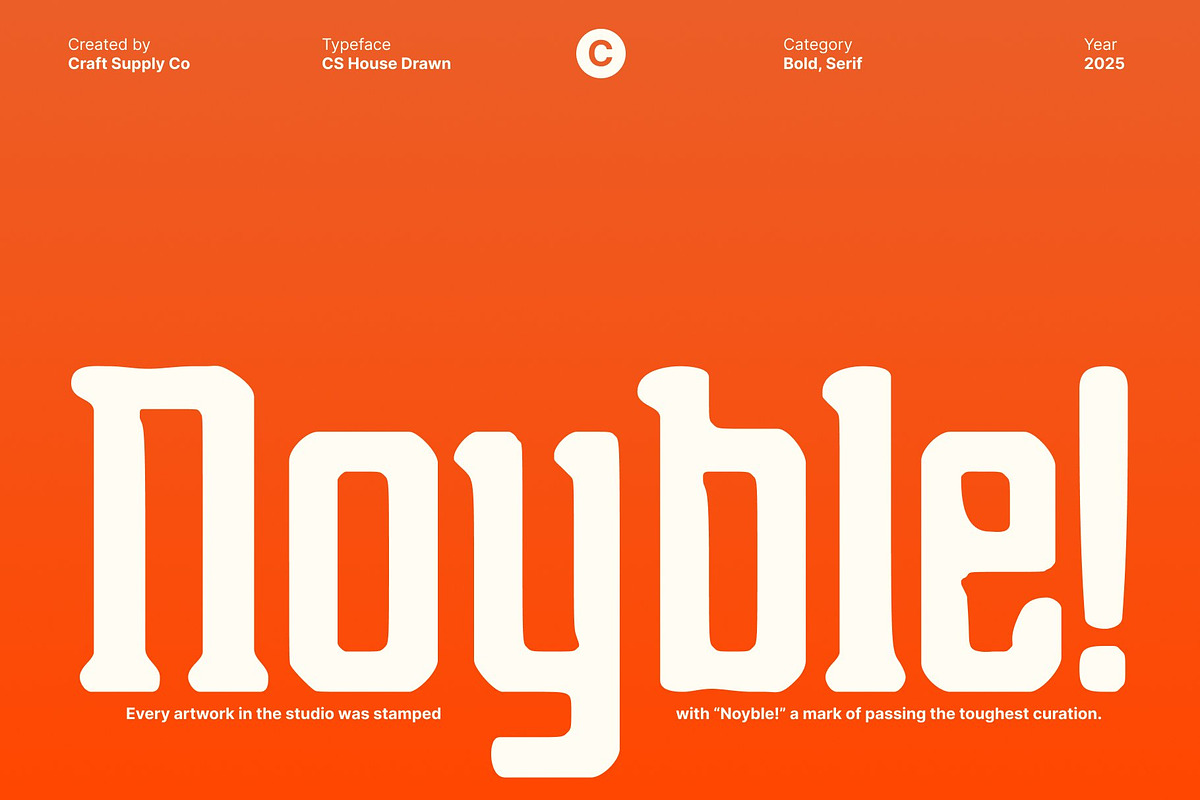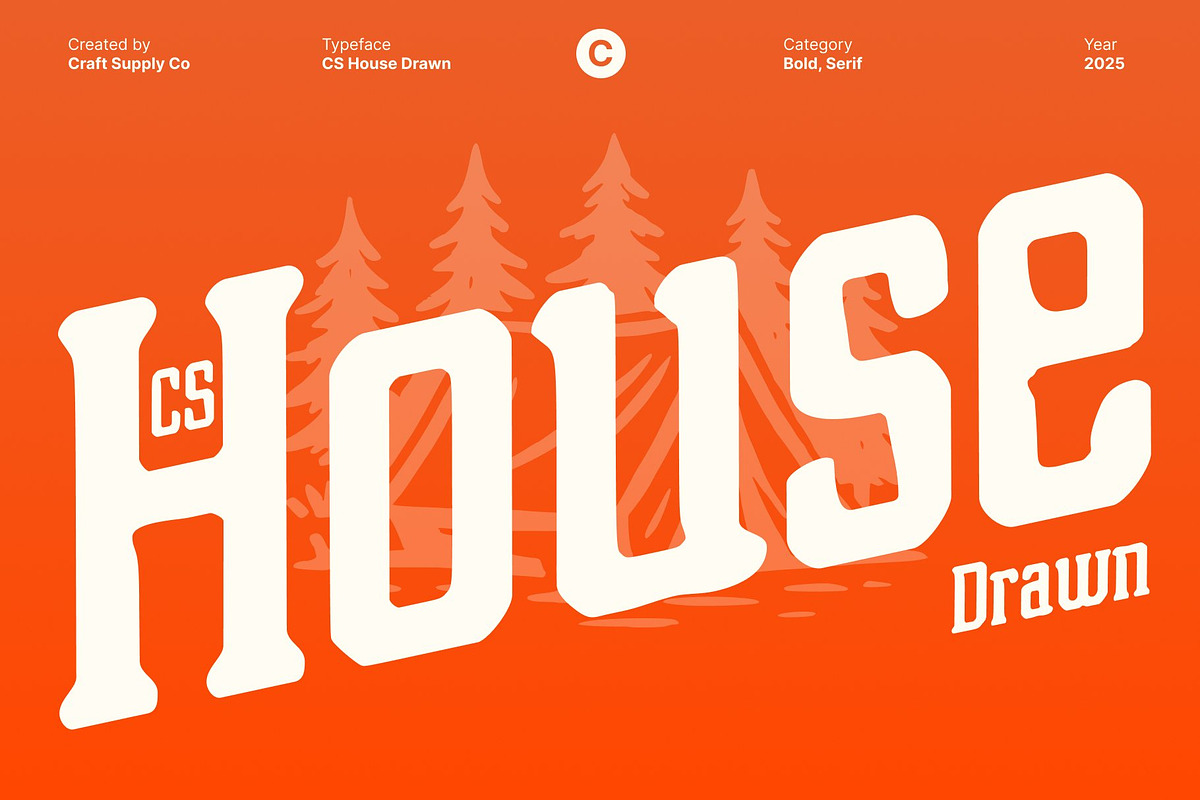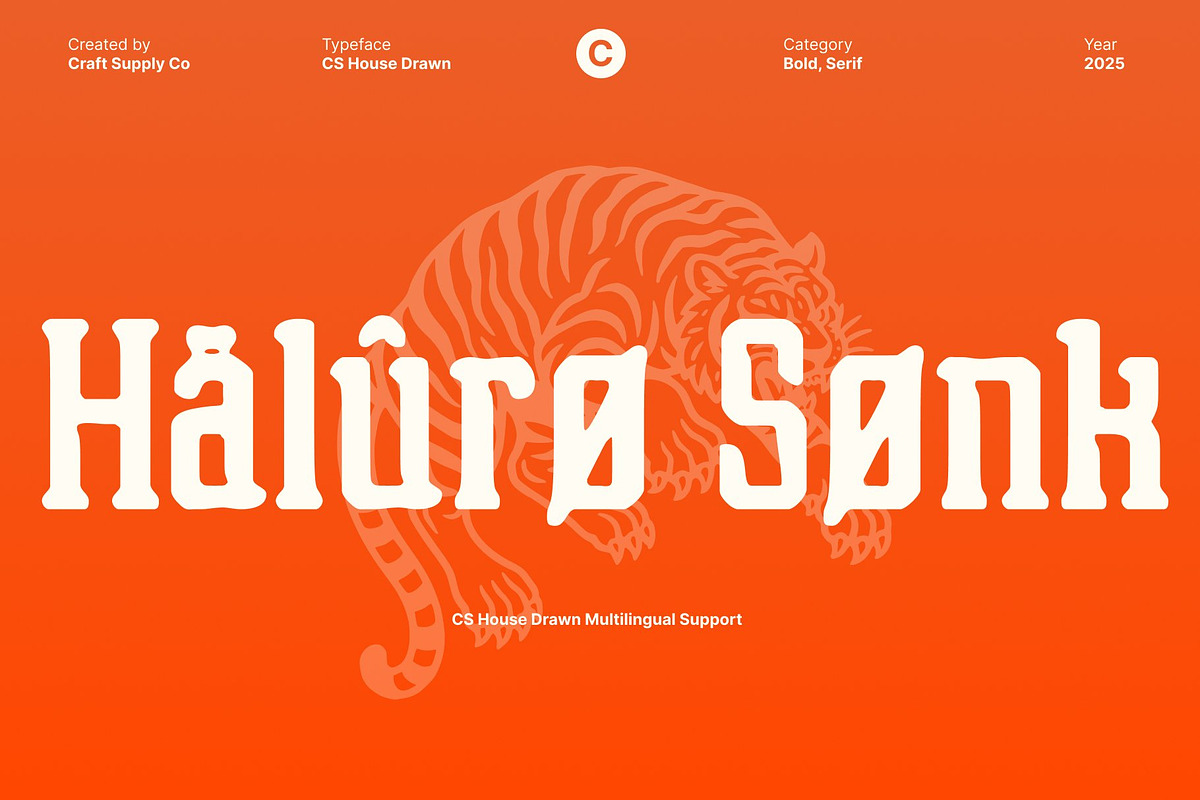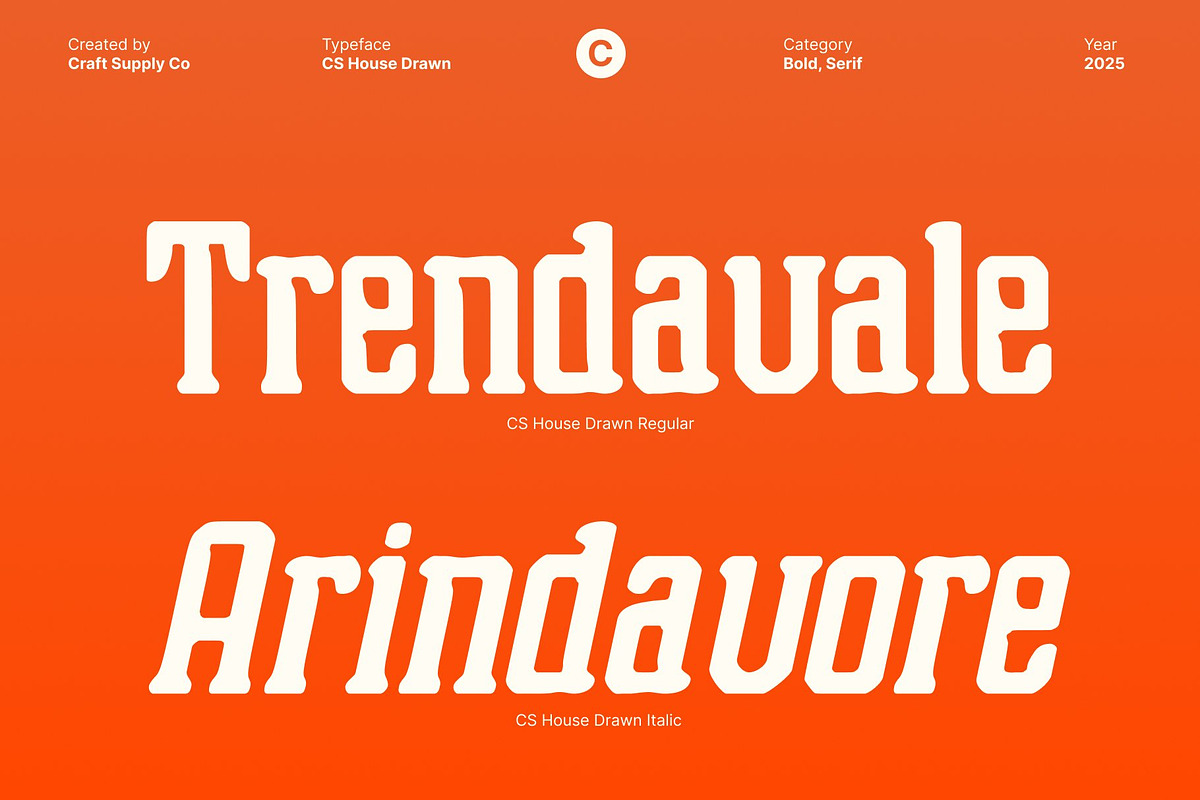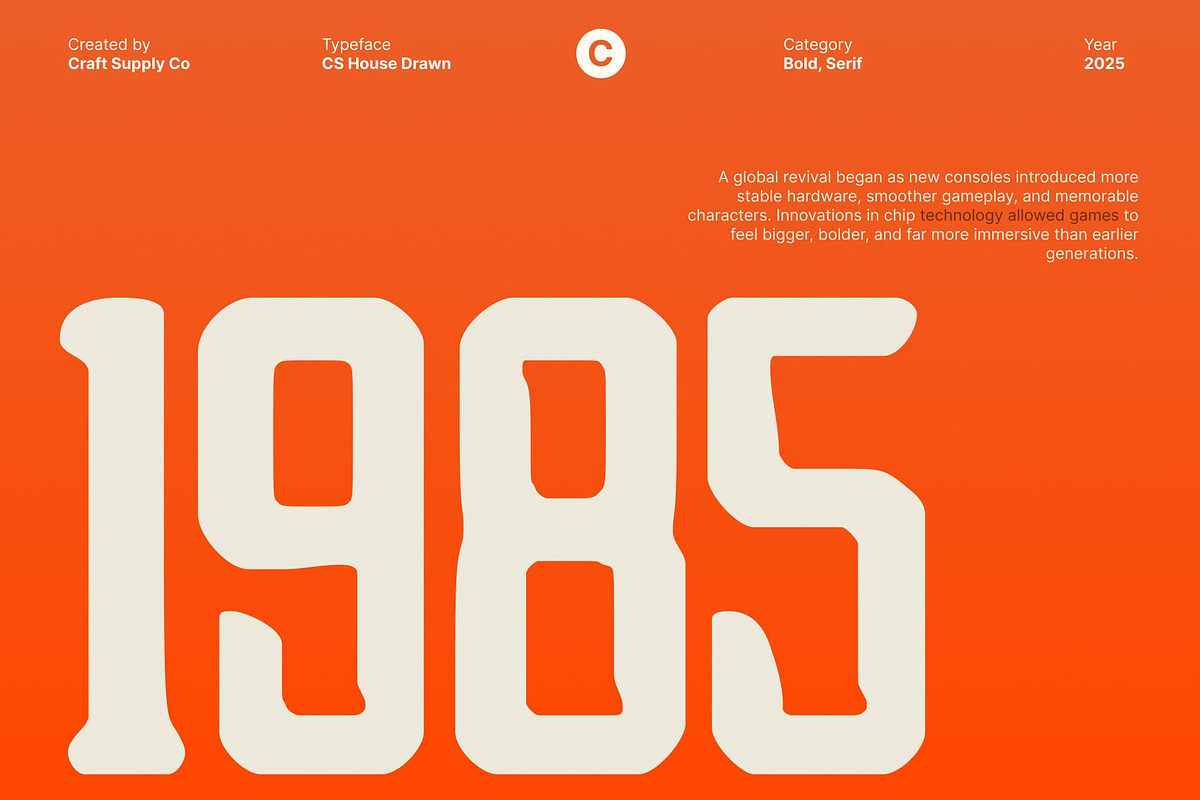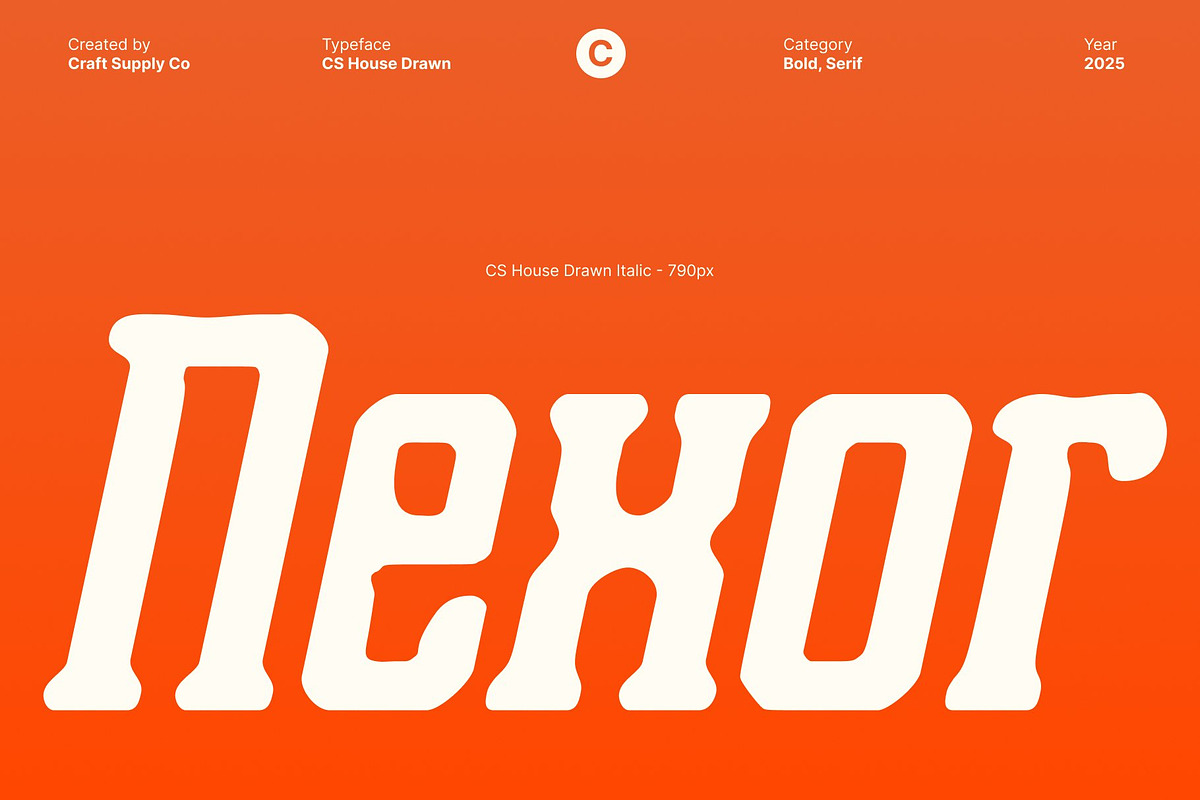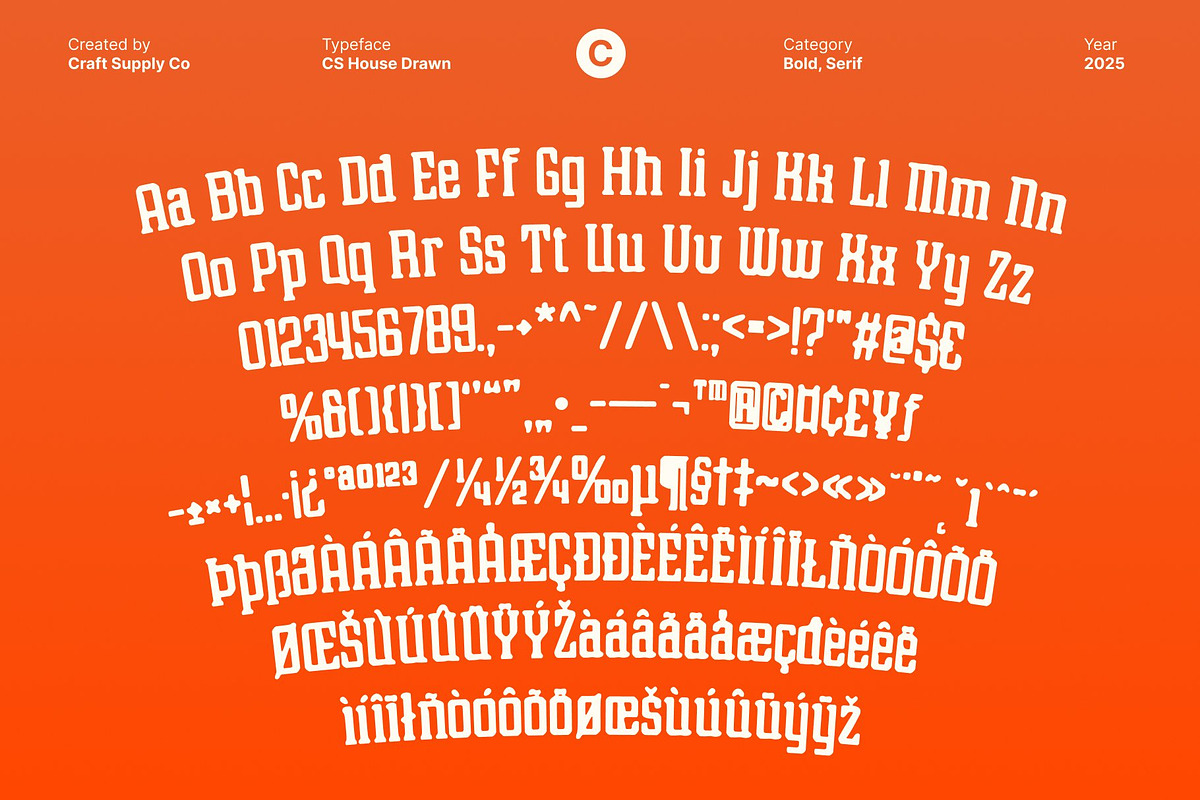
CS House Drawn
CS House Drawn – Bold Display Serif with Hand-Drawn Impact
Commanding Bold Serif for Maximum Impact This is a bold display serif font designed to capture attention instantly. Its strong, confident shapes create a commanding presence, making it ideal for projects that need to make a visual statement. The geometric clarity and substantial weight ensure that every letter stands out, delivering authority and boldness to your designs.
Hand-Drawn Effect for Expressive Personality The drawn effect adds a unique, handcrafted touch to this font. Each character carries subtle textures and organic irregularities, infusing the font with personality and energy. This handmade quality softens the bold structure slightly, creating a dynamic balance between strength and expressive artistry.
Perfect for Branding, Headlines, and Poster Art This font thrives in high-impact applications such as branding, headlines, posters, and display graphics. Its bold forms ensure visibility from any distance, while the hand-drawn texture enhances memorability and visual interest. This combination makes it an excellent choice for creative campaigns, promotional materials, and standout editorial layouts.
A Typeface That Delivers Strength and Character This font is designed for designers who want text that commands attention while expressing creative flair. Its bold sans serif structure paired with handcrafted detailing makes it versatile for modern, urban, and artistic projects alike. Use this font to inject energy, personality, and unmistakable presence into every design.